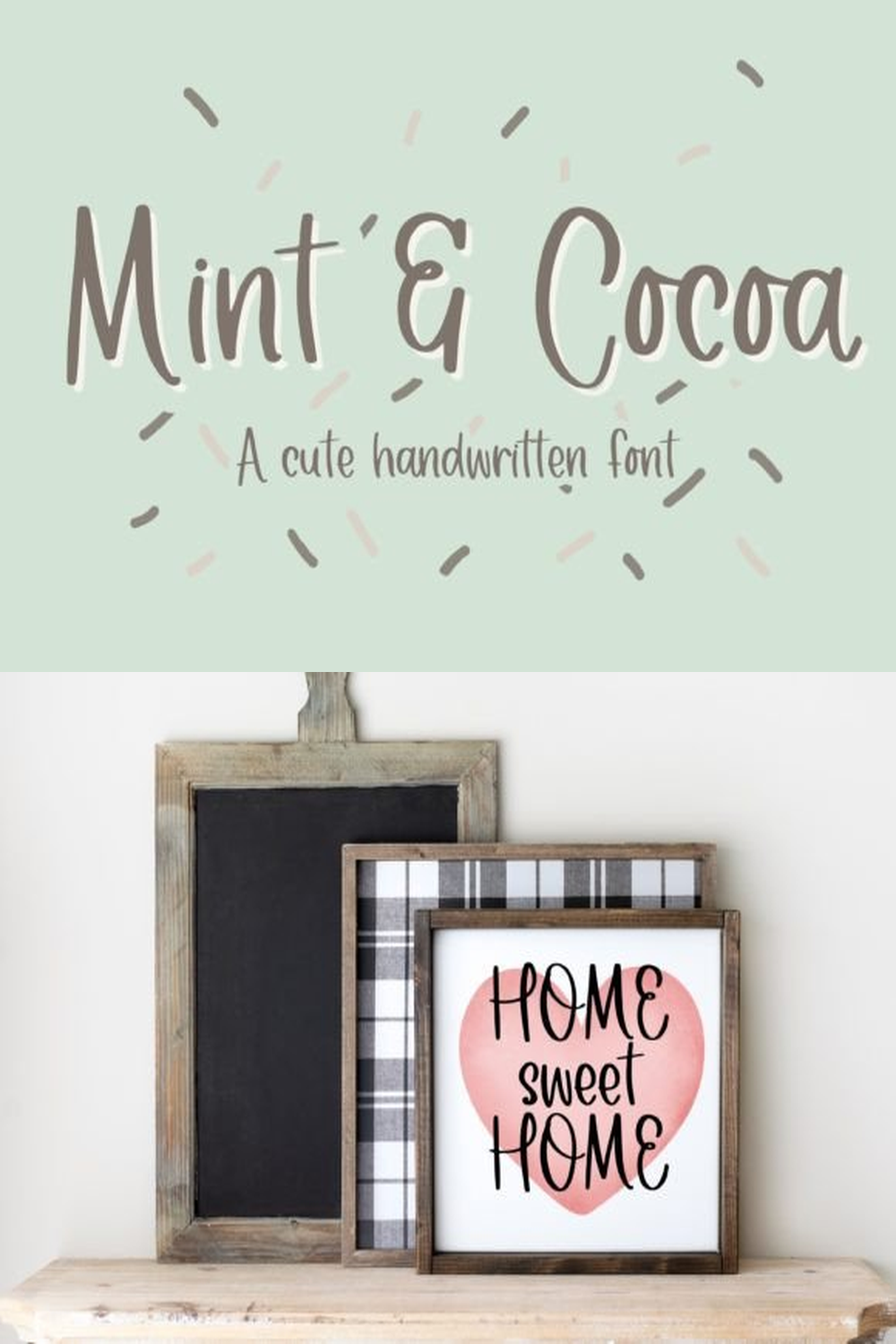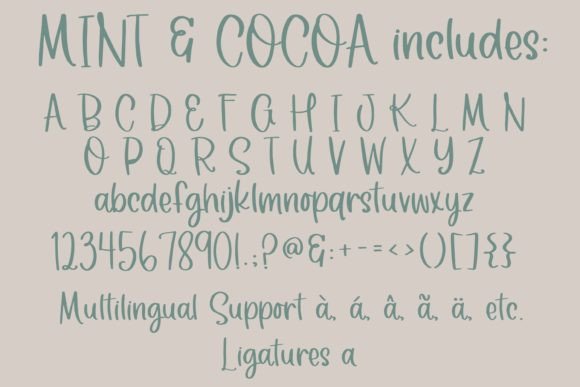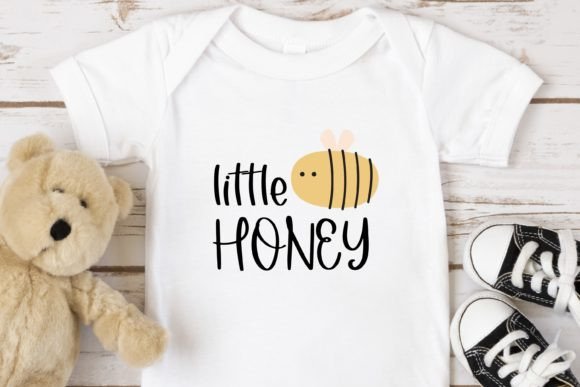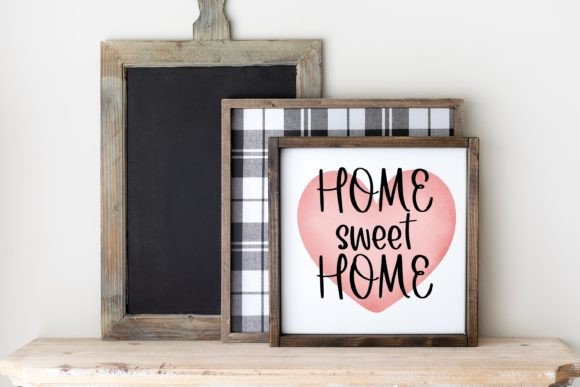
Mint & Cocoa Font
About the Mint & Cocoa Font
From logos to headlines, the Mint & Cocoa Font is the perfect choice for making a lasting impression. Introducing Mint & Cocoa, our adorable handwritten font, perfect for all your creative projects! Whether you’re a Cricut enthusiast or simply looking for a charming handwriting font, this handwritten gem is exactly what you need. With its elegant curves and smooth strokes, this cute cursive font brings a delightful touch to invitations, greeting cards, and personalized crafts. Transform your designs into stunning works of art with our versatile script font, the ultimate choice for anyone seeking a captivating and expressive typeface for their projects.